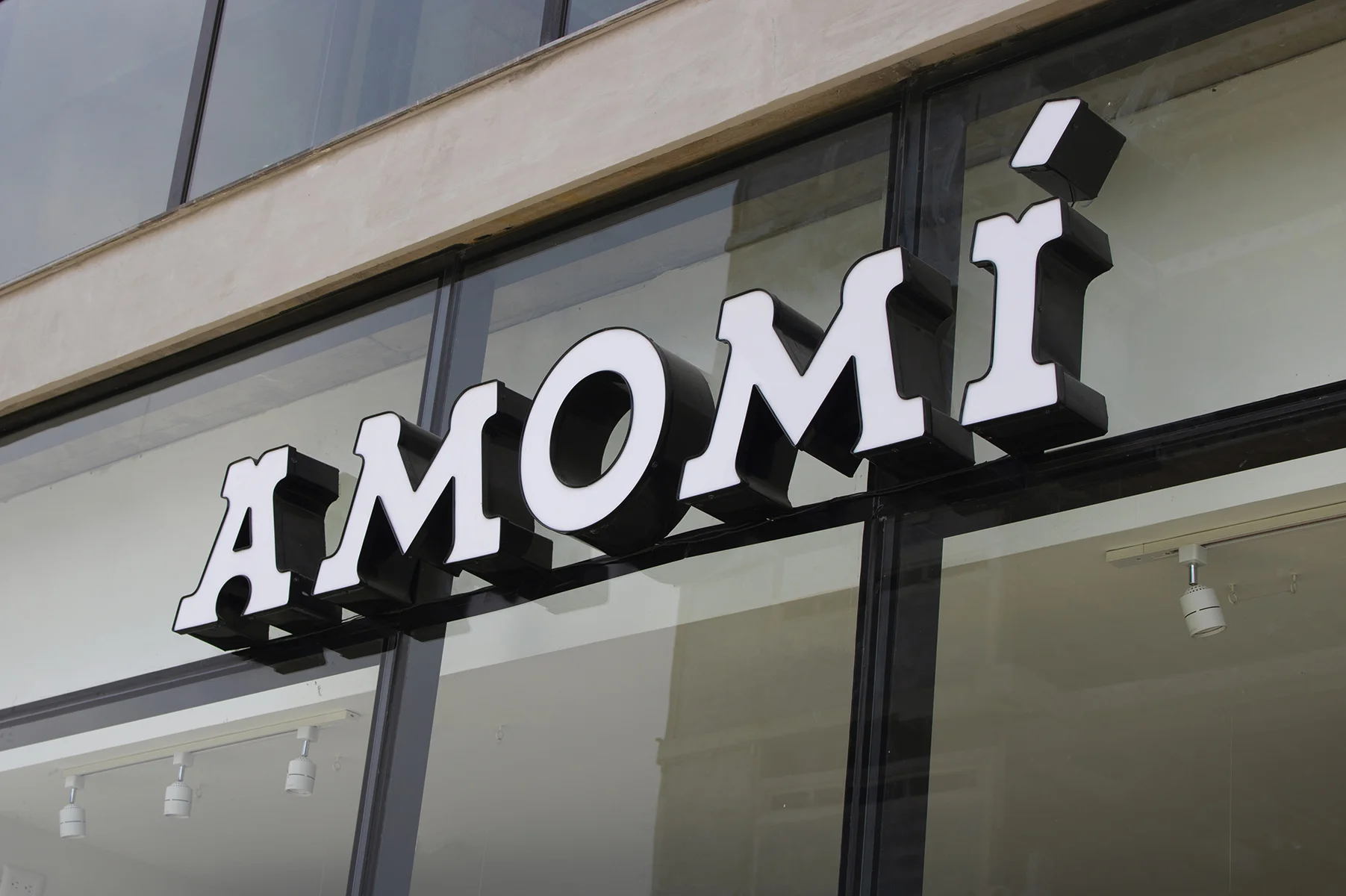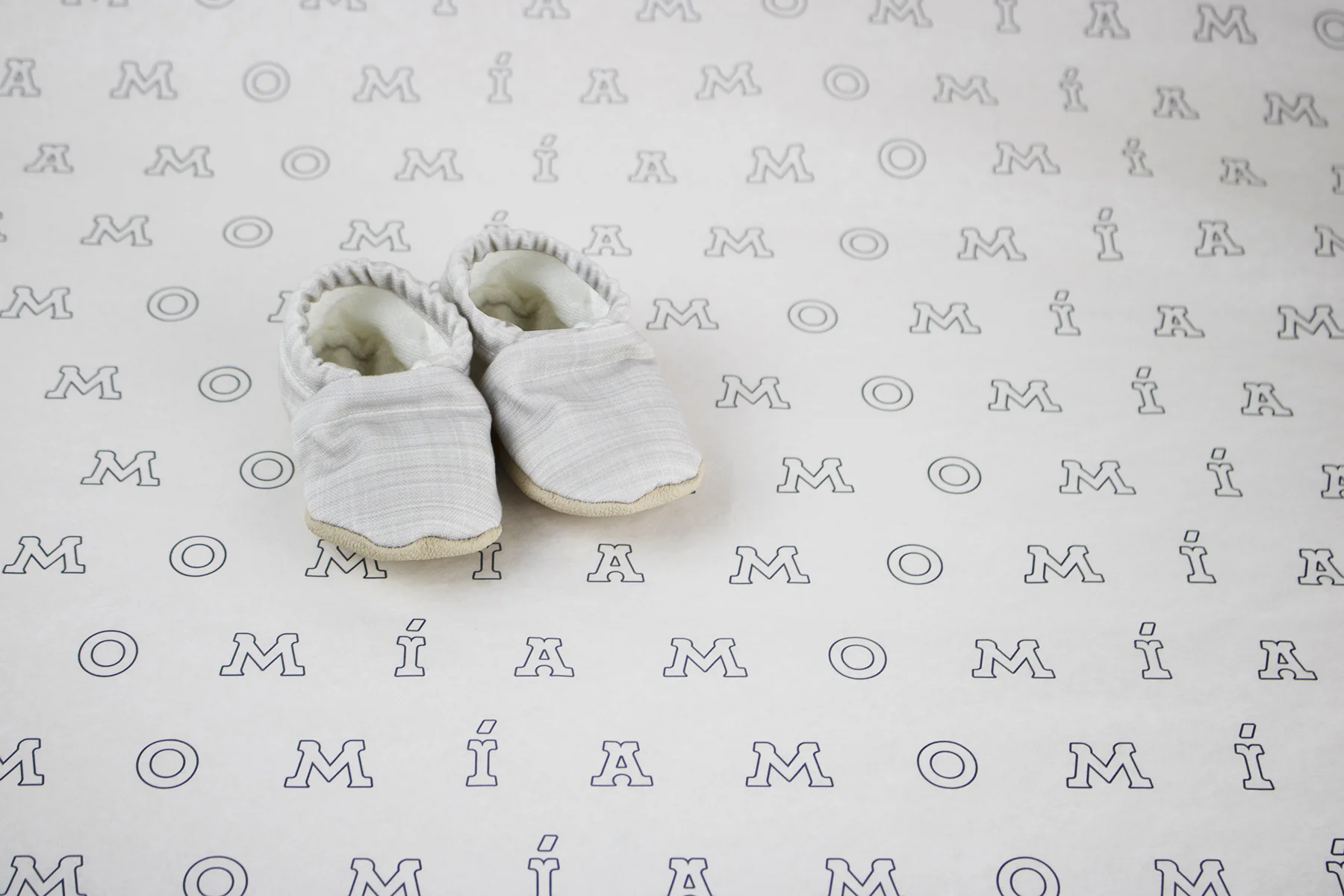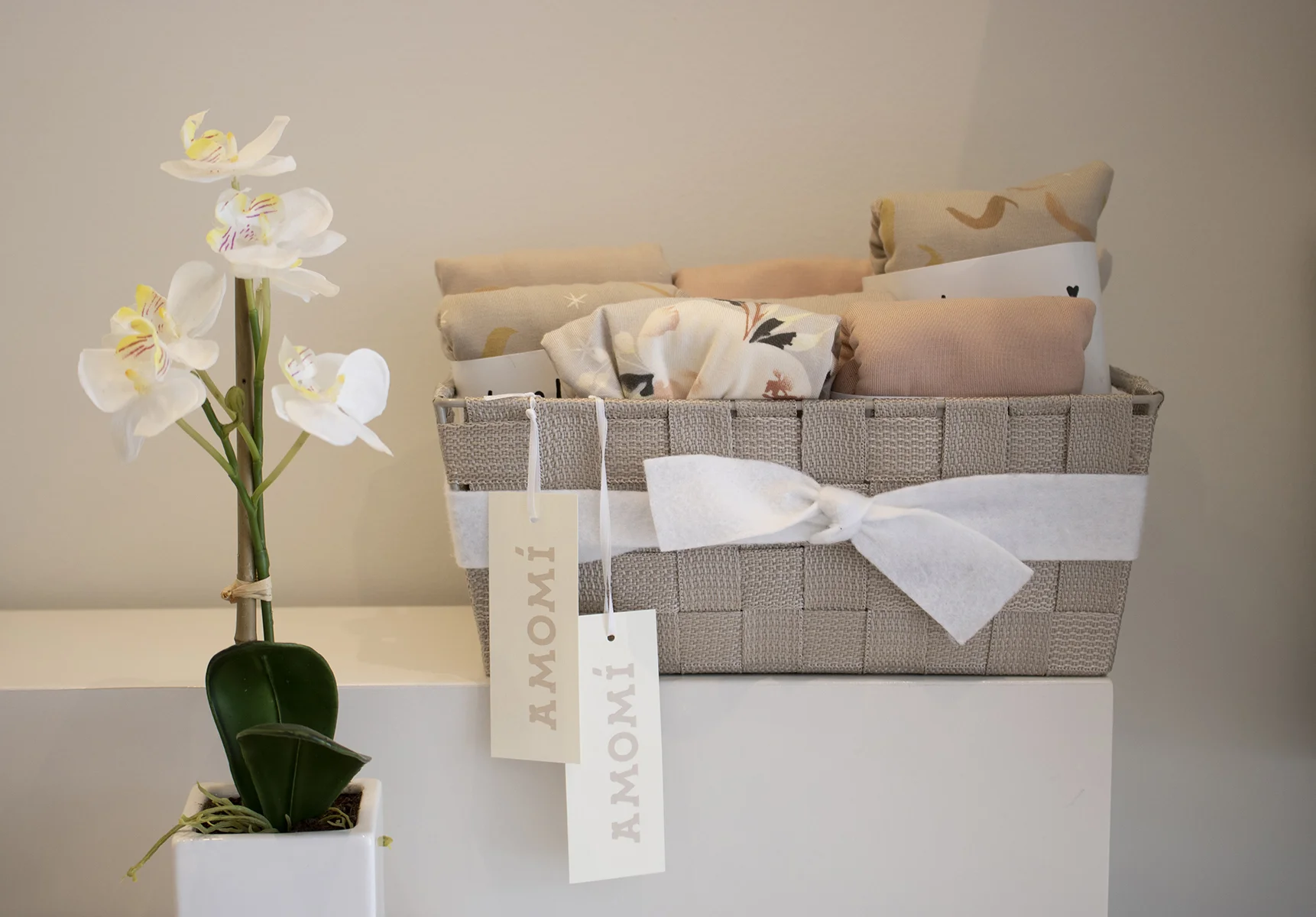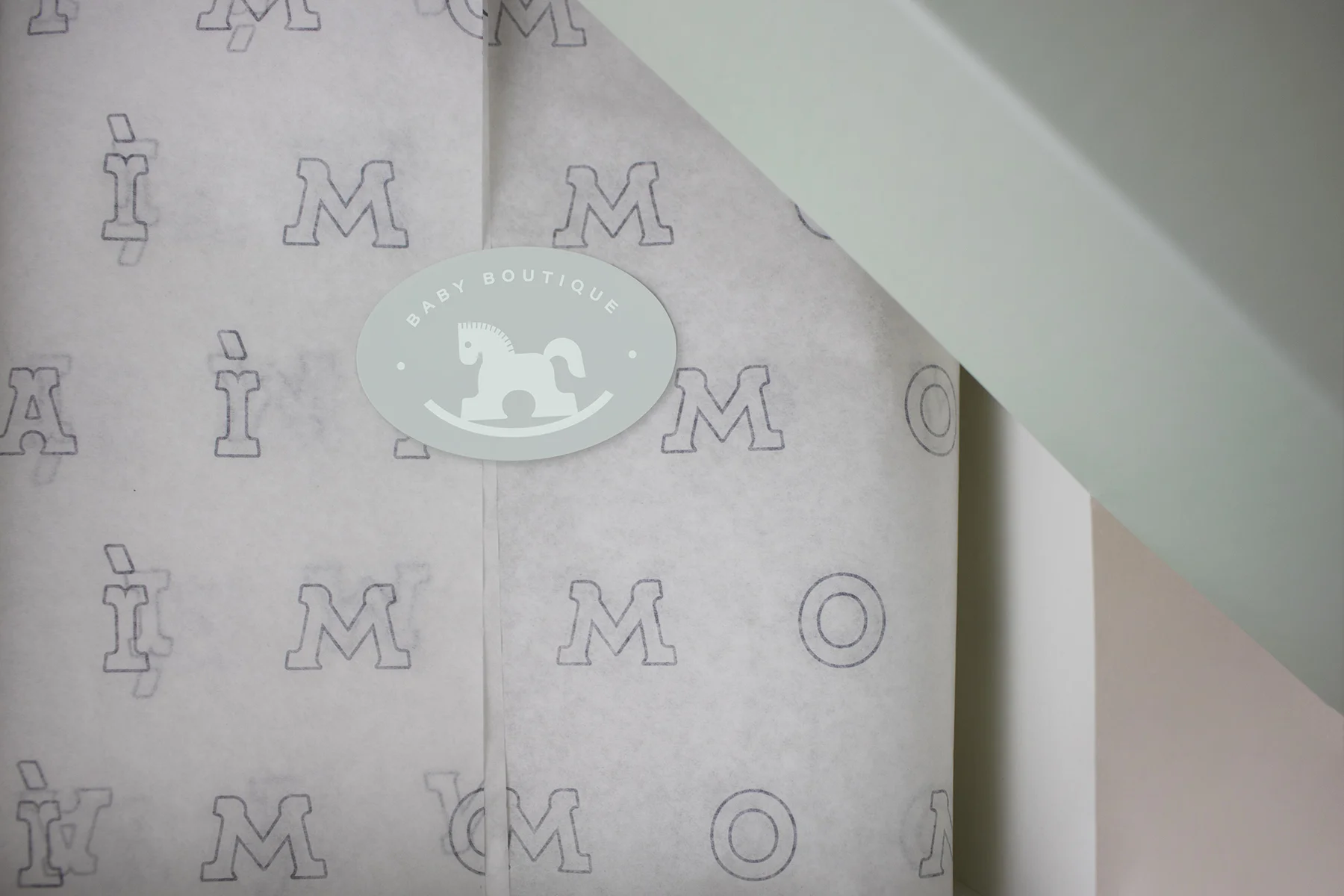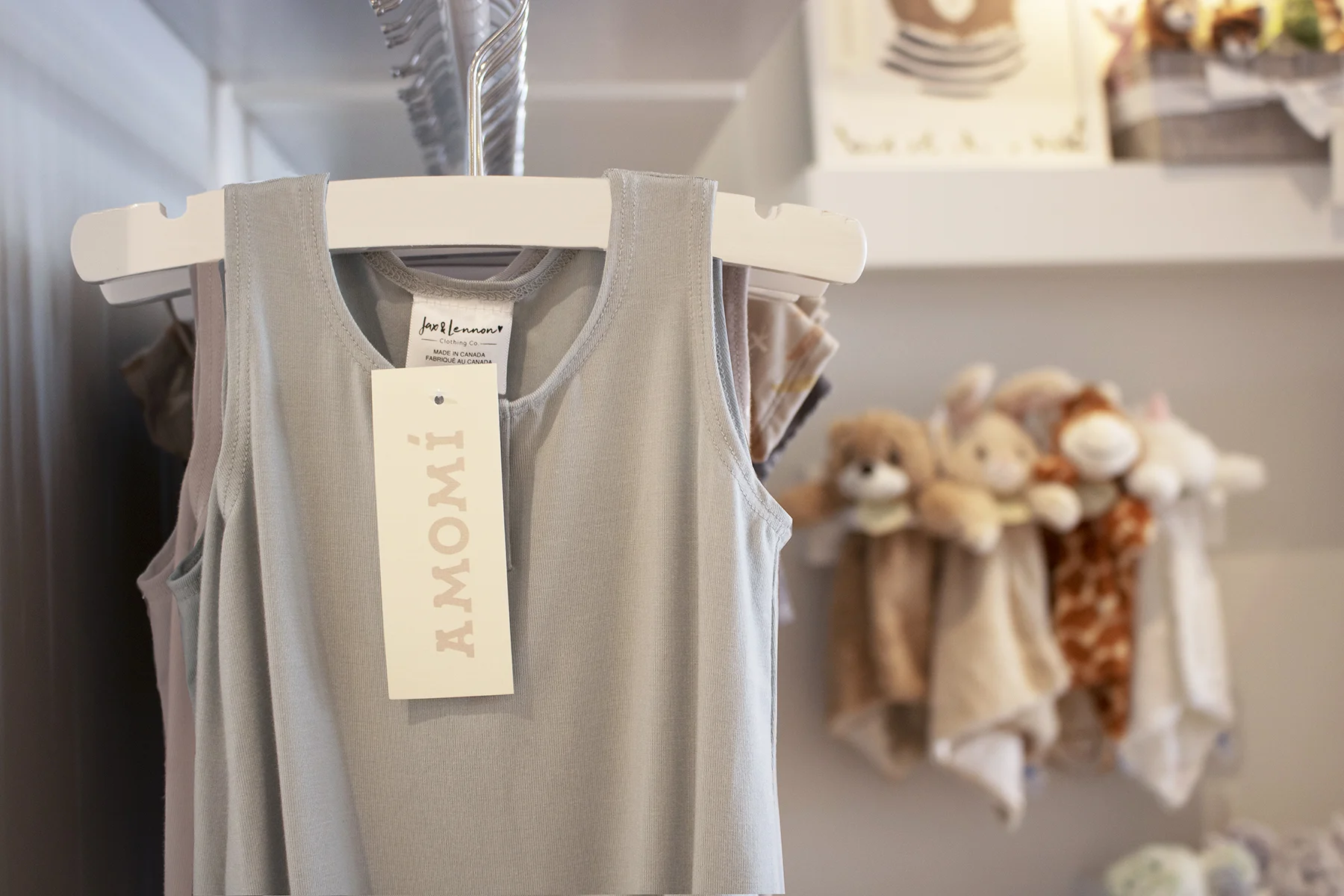
THE BRIEF
A team of mother and daughter looking to open up an exclusive boutique for mothers and their babies. The store is looking to sell useful, functional products as well as modern, well-designed and eco-friendly pieces.
The idea was to create an elegant, yet cozy and welcoming brand that would attract new mothers and gift-givers.
THE RESULT
Caracter developed the identity for this baby boutique thinking of a strong concept, a memorable symbol, and unique logotype for the brand to begin its business, create awareness and attract the right customers.
NAMING
The name is inspired by the way toddlers mispronounce phrases in spanish. In this case, Amomí is a mispronunciation of “a dormir,” which means time for bed. This gave the brand an immediate recognition for possible customers looking for a baby-related boutique. It also gave the name a cute, comforting sound with an original, local meaning. This name gave way to the rest of the brand, including the symbol and the visual reference behind the wordmark design.
BRAND ELEMENTS
Amomí’s unique wordmark references letterforms found on letterblocks and carrousels. This led us to develop a symbol depicting a rocking horse from the same letter designs. The result is a set of wordmark and symbol that creates consistency in the graphic language spoken throughout the brand elements and the experience the customers receive while interacting with the business.
The rocking horse speaks to the brand’s target market immediately and serves as a reduced logo for communication in minimal spaces.
These elements combined create a cozy, cute and comforting scene with light, muted colors that form a color palette easily adaptable for gift packaging.
BRAND PHRASE
We wanted to have a brand phrase or slogan that connected directly to the main clients: new moms. The phrase “first things first” allowed us to remind these customers of their first steps into motherhood and how important and exciting it is to prepare for this new chapter.
BRAND COLLATERAL
The different brand elements allowed us to create brand collateral such as stickers, gift bags, gift boxes, decorative tissue, ribbons and tags, as well as pieces for the boutique’s interior decor. The experience invites the customer to have distinct, memorable interactions with the brand.